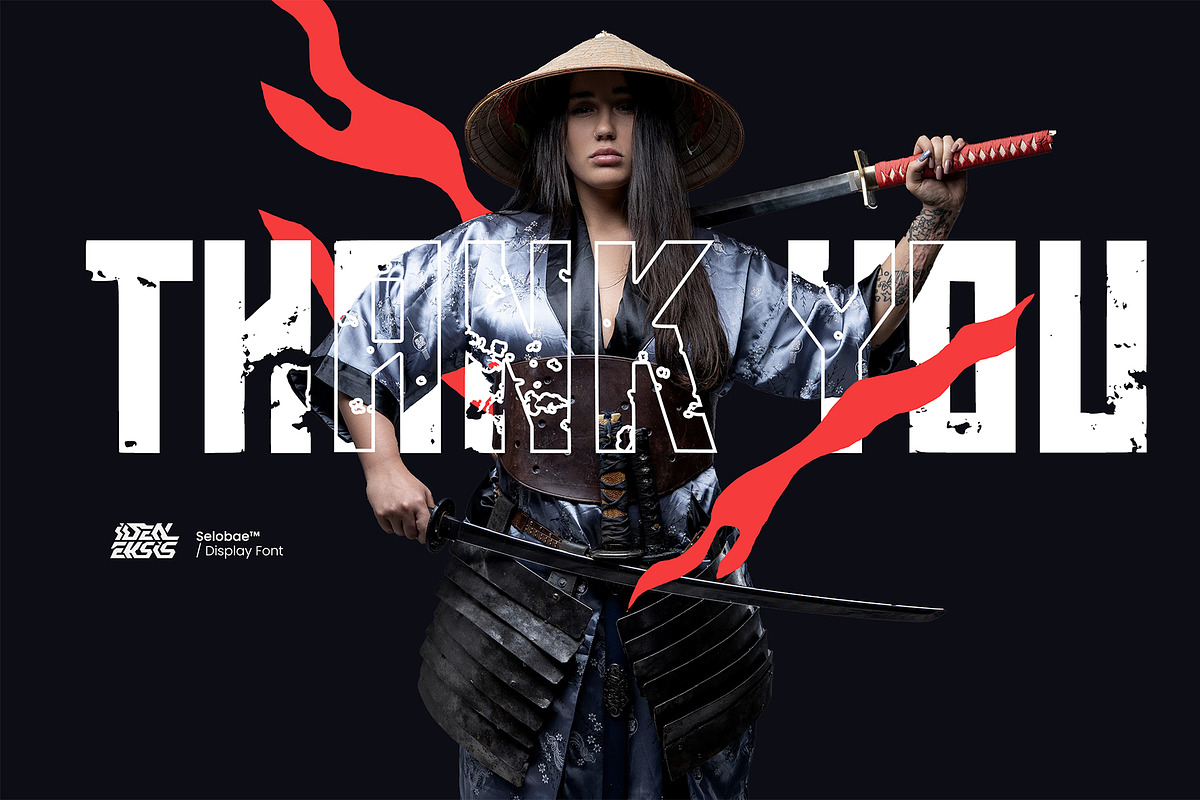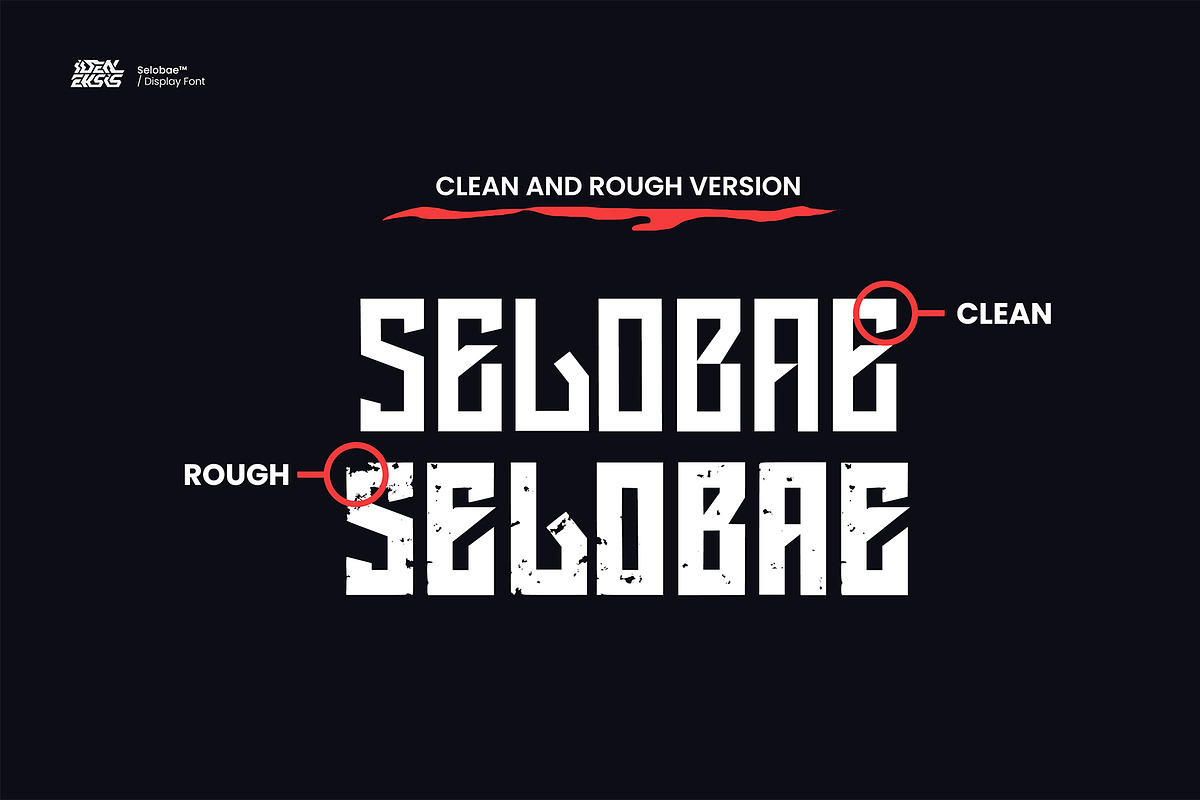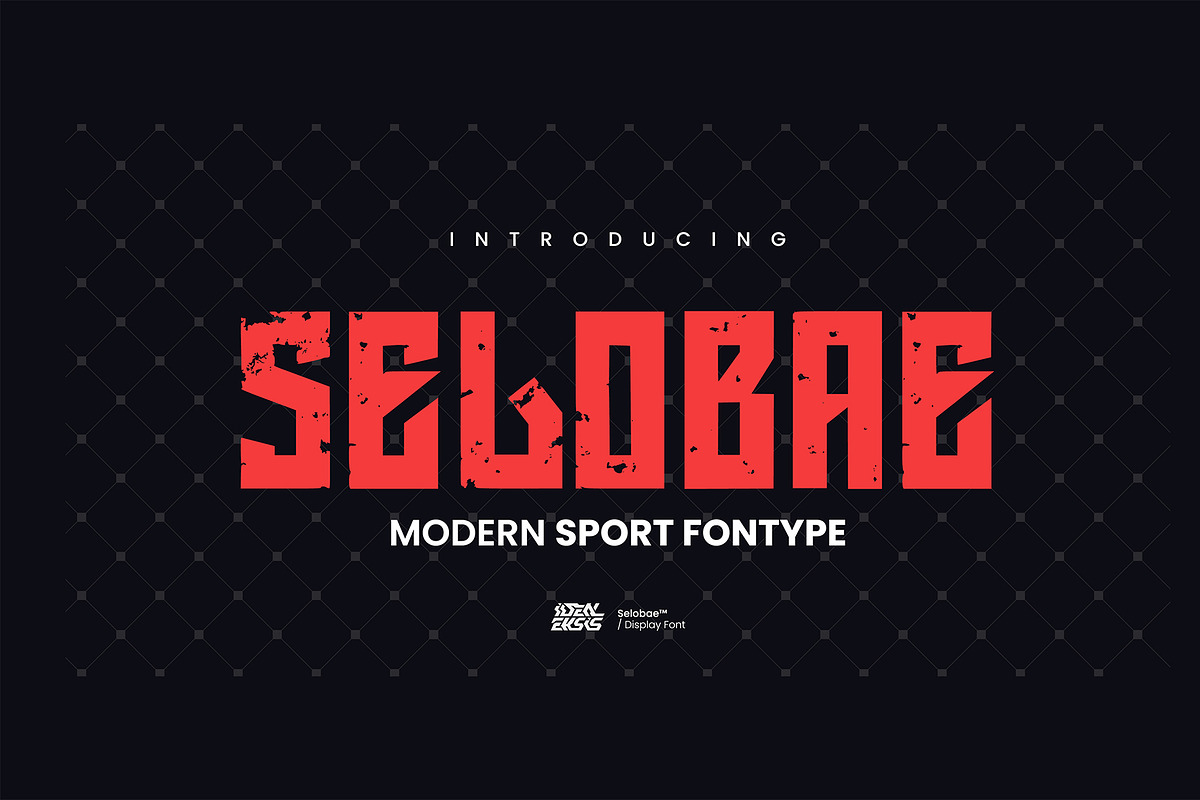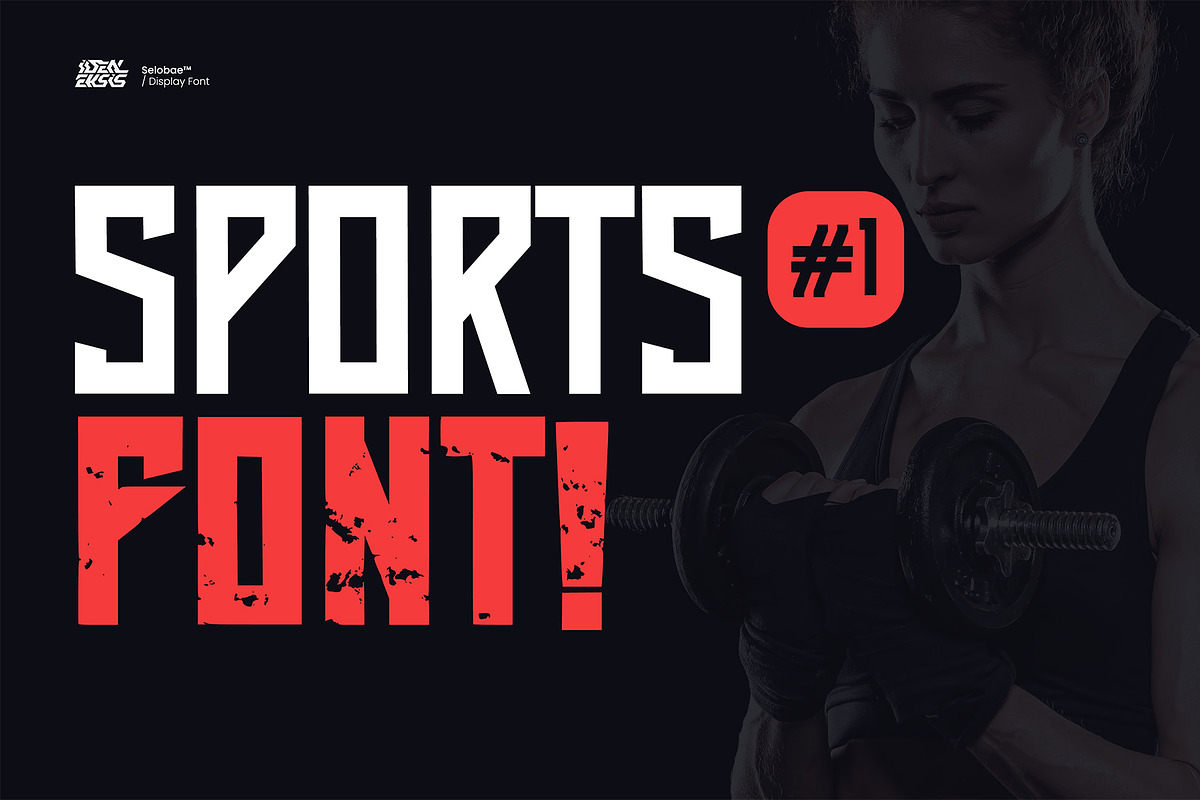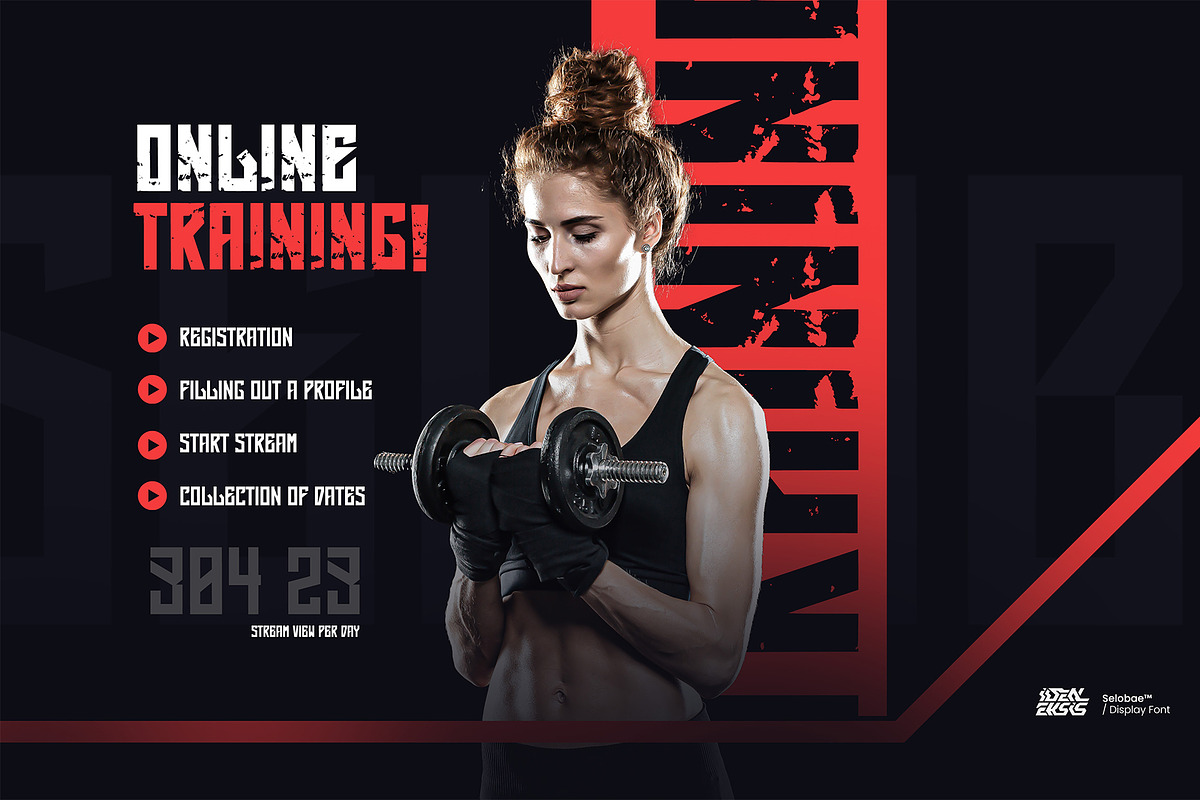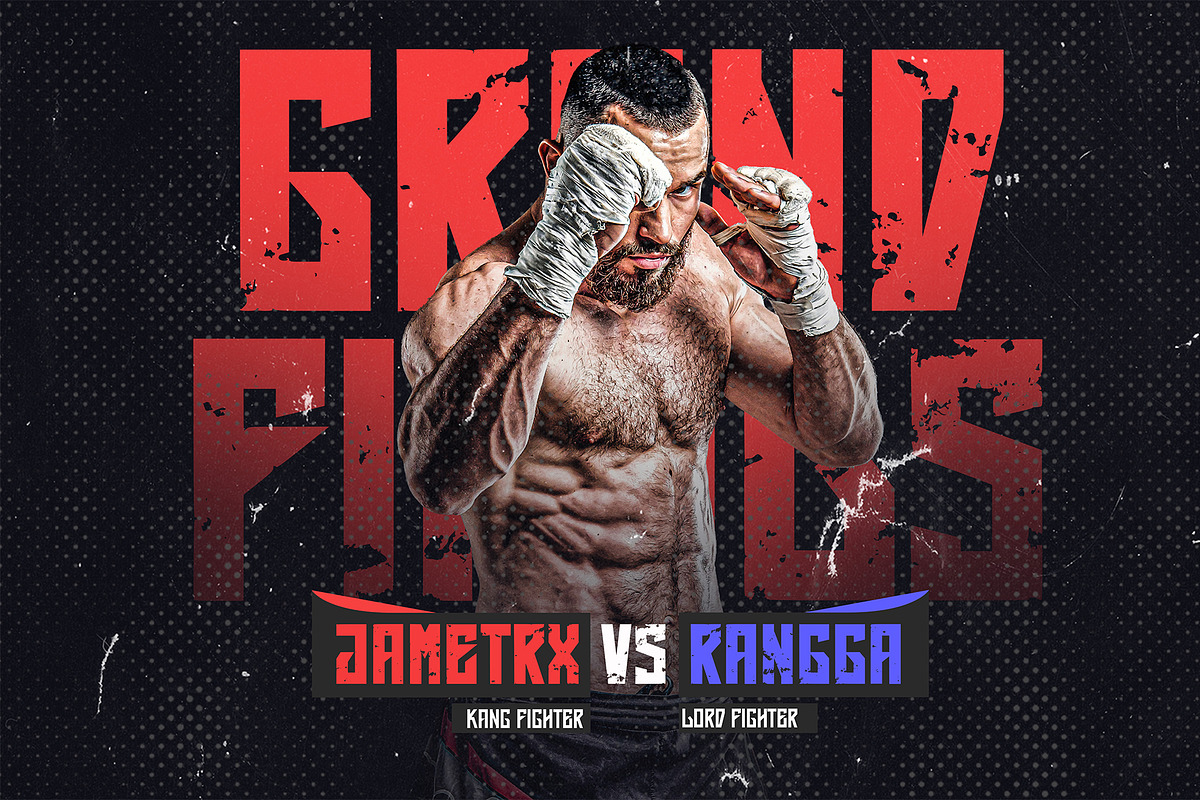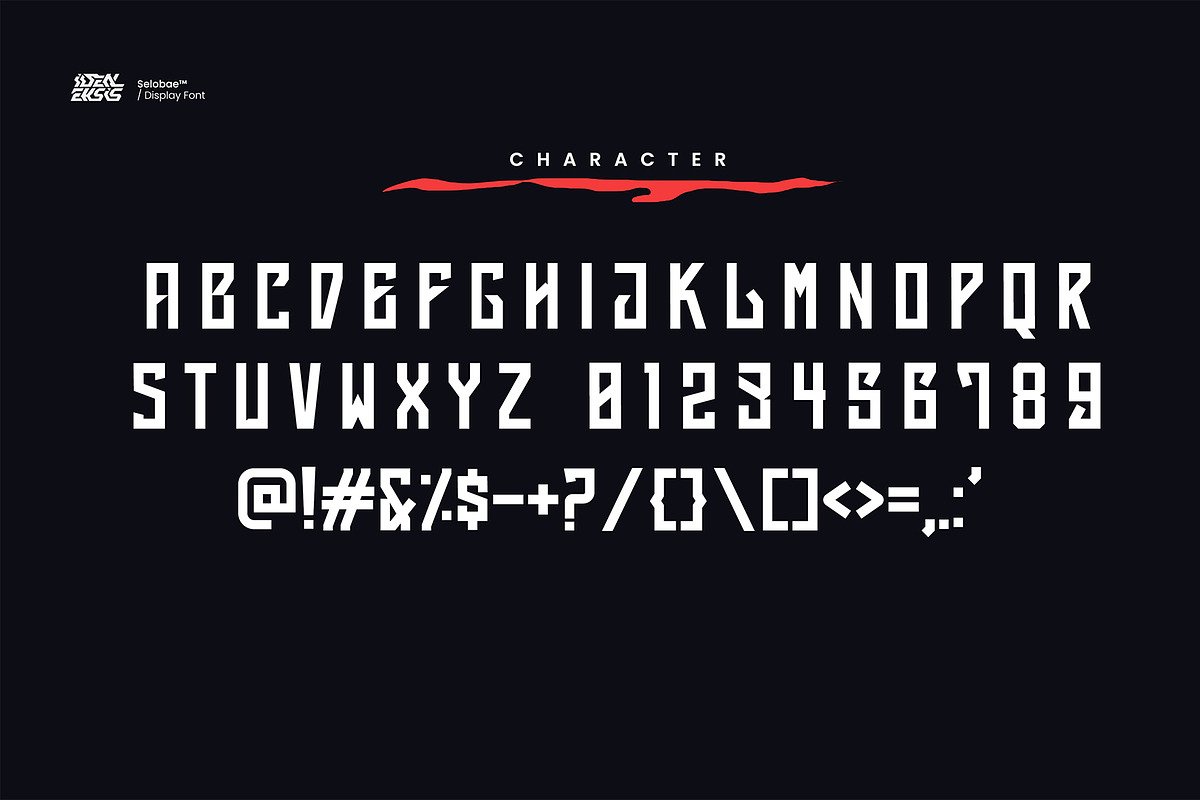
SELOBAE - Sport Dispay Font
SELOBAE - Sport Display Font offers the perfect blend of strength and style for sports-related designs. This versatile font comes in two distinct variations: clean and rough, providing flexibility to convey various aesthetics.
Clean Version: The clean variant of SELOBAE is characterized by its sleek and polished appearance. The letters are meticulously crafted with bold, sharp lines that exude a sense of power and determination. This version of the font is ideal for sports branding, logos, and posters, where a modern and professional look is desired. It conveys the essence of precision and athleticism, making it a strong choice for athletic apparel, fitness campaigns, and team merchandise.
Rough Version: The rough version of SELOBAE introduces a rugged, gritty texture to the font. Each letter appears weathered and distressed, reminiscent of the battle scars earned in competitive sports. This variant is perfect for designs that aim to capture the raw and intense spirit of sports, such as event banners, team banners, or sports-themed artwork. It adds a sense of authenticity and toughness to your visuals, evoking the passion and dedication of athletes in action.